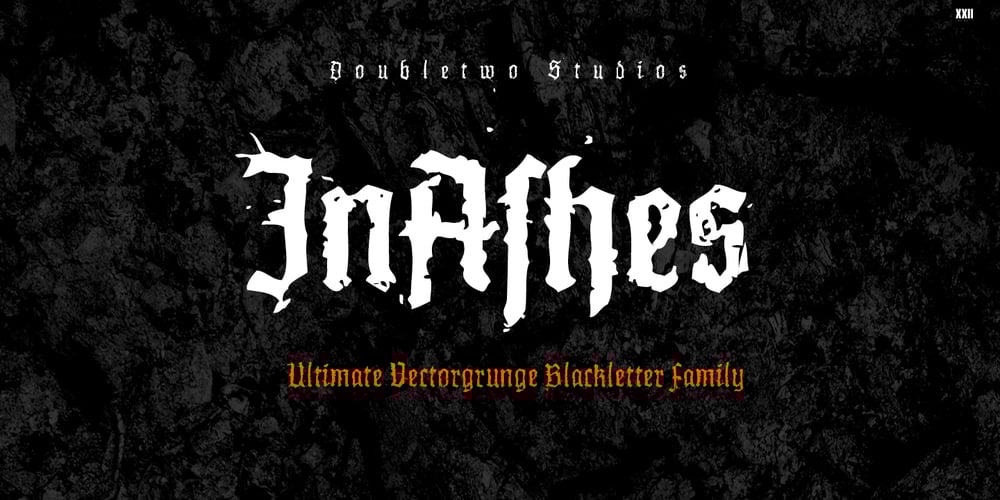
XXII InAshes
XXII InAshes font
XXII InAshes Font Family was designed by Lecter Johnson and published by Doubletwo Studios. XXII InAshes contains 28 styles and family package options. As you may know that i am a big lover of ugly music and all aesthetics coming along with it, my main concern at XXII-InAshes was to create a font that fits visually perfect and fulfills the basic requirements of a font most free fonts don’t. In this case it means the fonts of this family come along with some little extras like the ‚long ſ‘ (generally used with black letter fonts) and ligatures (like ‚sch‘ ‚ss‘ ‚st‘), a proportional and tabular numerals set, and a european latin language support. XXII-InAshes is a low detail grunge black letter font family. It was made for usage in small sizes, but if you’re a fan of vector-grunge feel free to blow it up as big as you like. Enjoy & create awesome looking stuff.